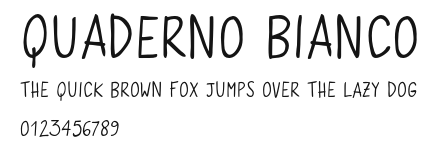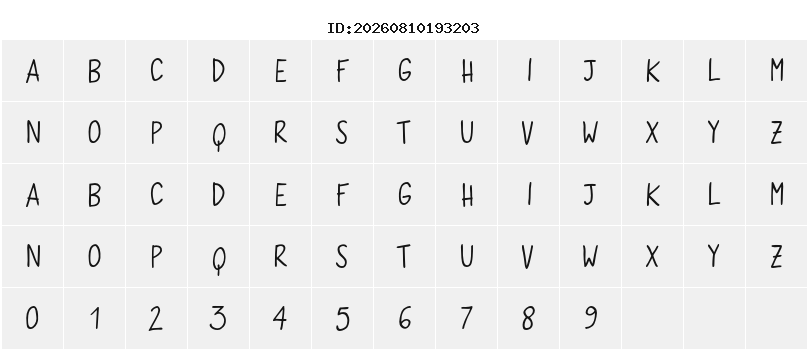
Quaderno Bianco Preview
• Font Name: Quaderno Bianco
• Designer: Katiuscia Mari for Monocromo
About Quaderno Bianco.otf
Quaderno Bianco.otf is a modern, elegant sans-serif font designed for ultimate readability and visual harmony. Perfect for branding, headlines, web design, and print materials.